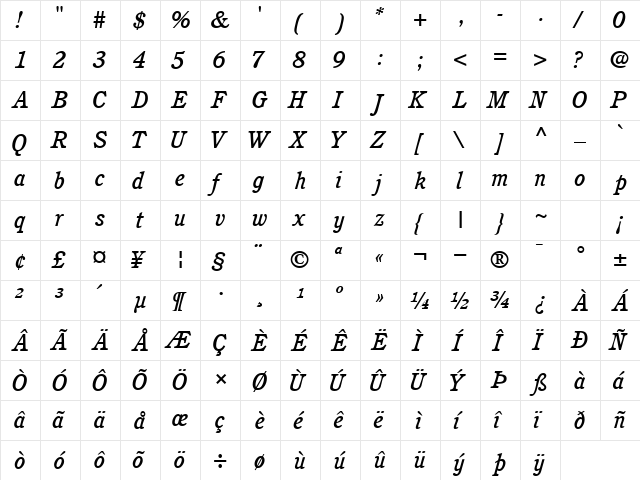
PerspectiveMediumSSK Italic
Design Context for PerspectiveMediumSSK Typeface
PerspectiveMediumSSK is a composed and adaptable typeface that performs quietly and consistently across a wide range of design contexts. Its italic angle brings a sense of urgency and motion to the letterforms.
Pro Tip: Use PerspectiveMediumSSK for emphasis, pull quotes, and subheadings where its slanted energy can add rhythm to the layout.